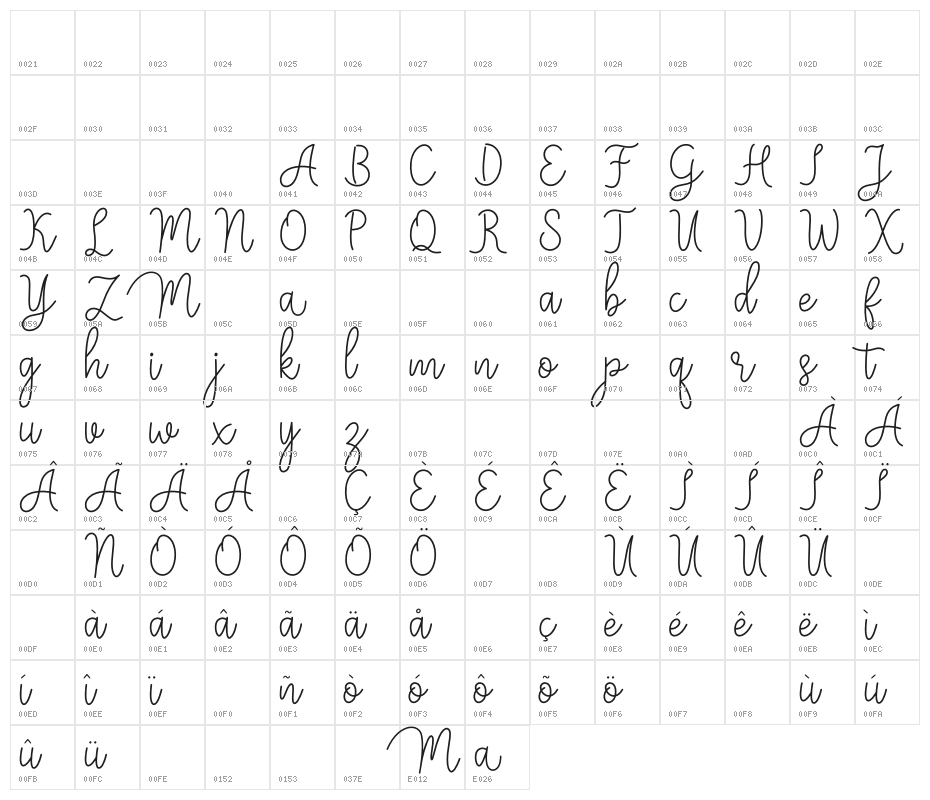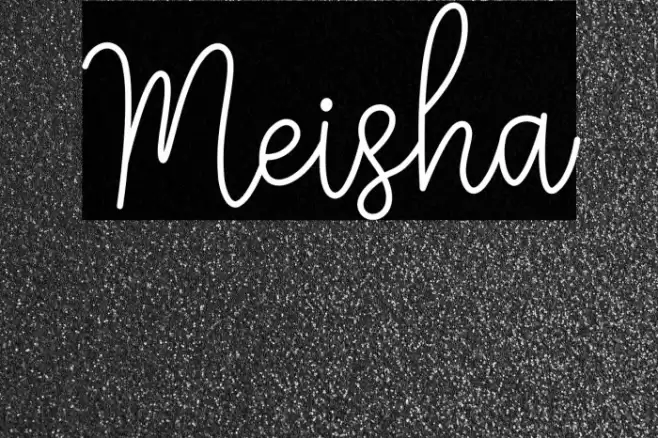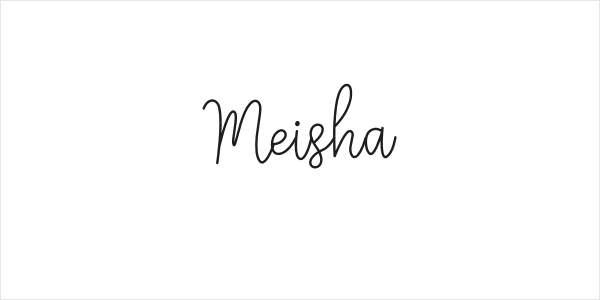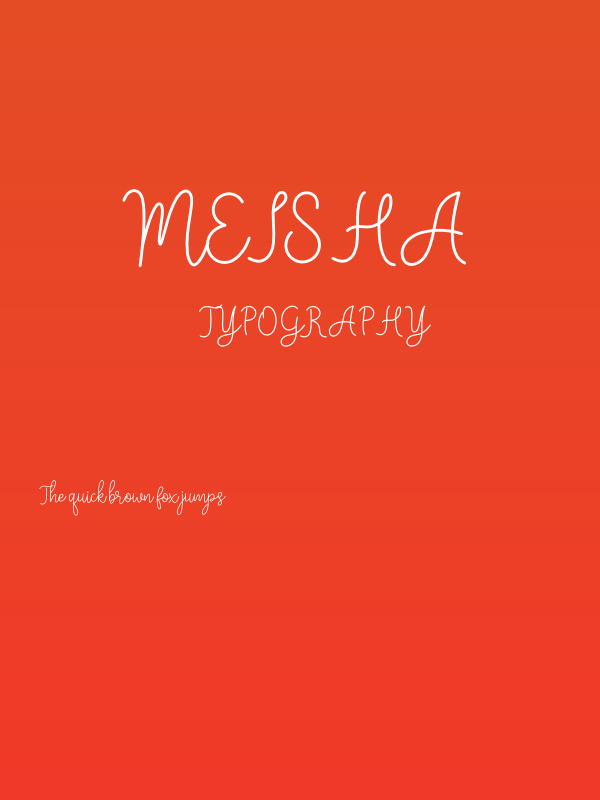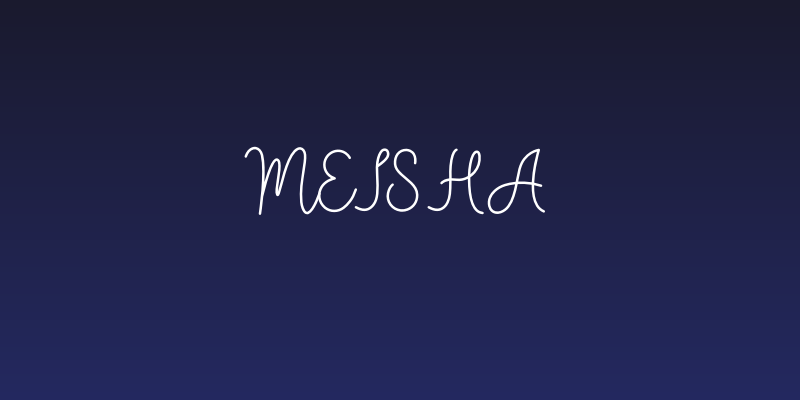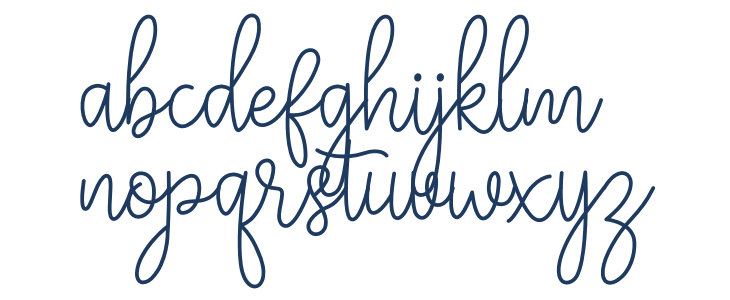
Meisha Font
Meisha Description
This font features a flowing, cursive style with elegant loops and smooth transitions between letters. The uppercase letters maintain a consistent height, while the lowercase letters exhibit a playful, handwritten quality. The strokes are thin, giving the font a delicate appearance, yet the overall structure remains clear and legible. The font's design is characterized by its graceful curves and a sense of fluidity, making it suitable for projects that require a personal touch. The numbers and special characters are designed to complement the letters, maintaining the same stylistic elements throughout.